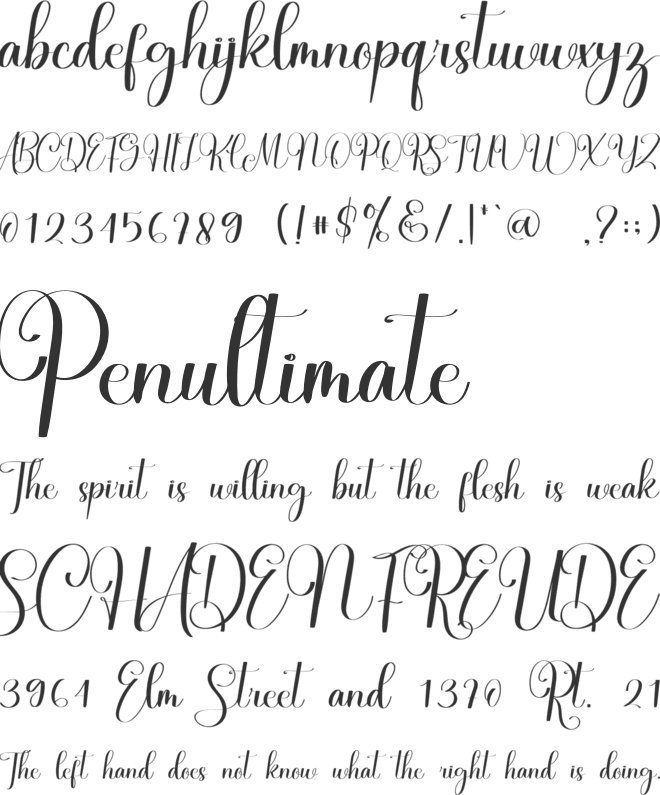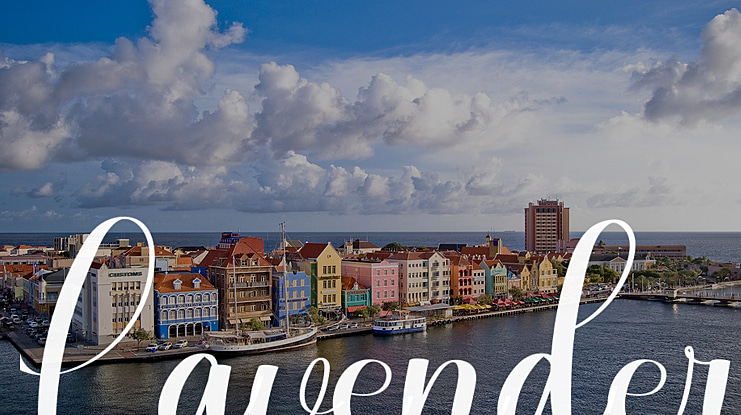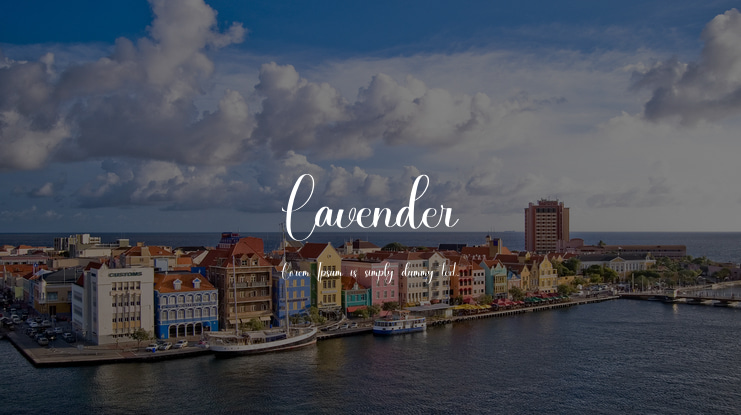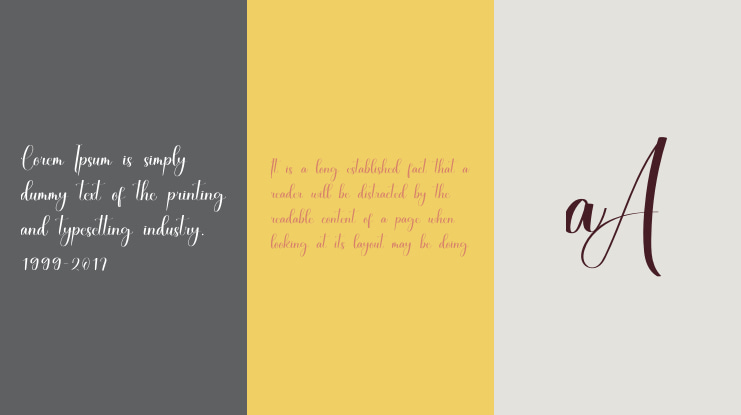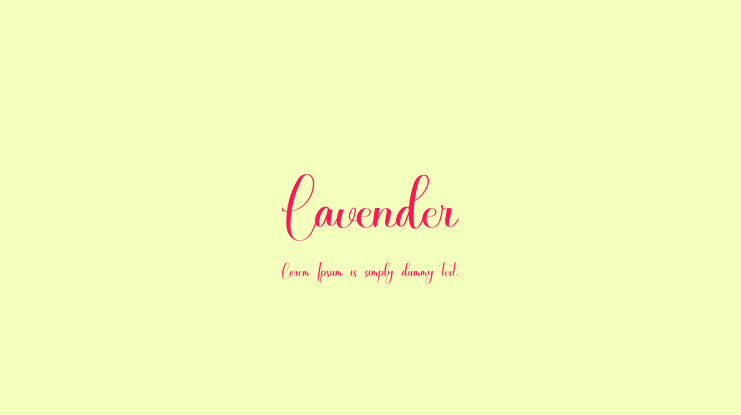
Lavender Font
This is a relaxed and beautiful paint brush handwritten font. It can be used for various purposes such as logos, wedding invitations, headings, t-shirts, letterhead, signage, labels, news, posters, badges and so much more.